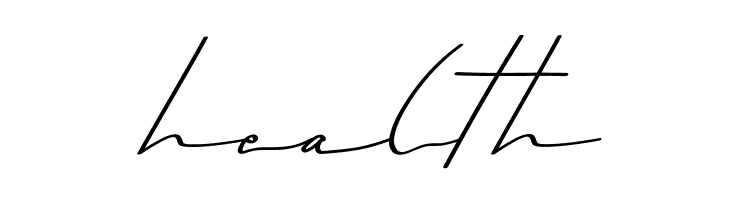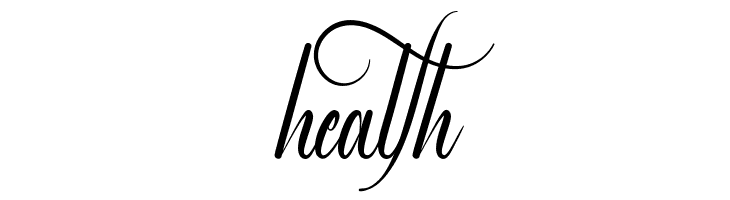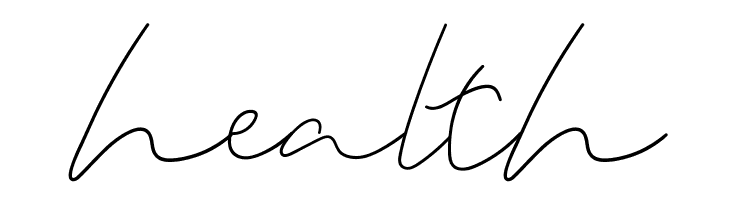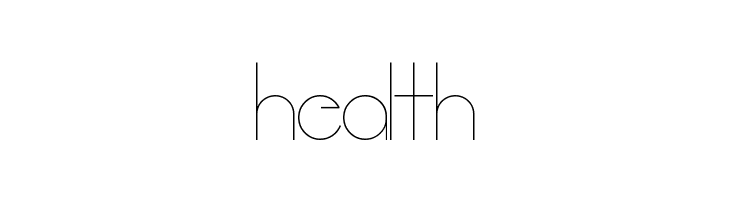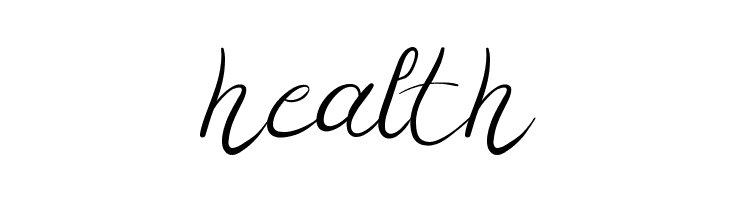
A whimsical and flowing script font with elegant, fluid letterforms.
A delicate and elegant script font with flowing, whimsical curves.
A flowing, cursive script with elegant loops and swashes, mimicking traditional calligraphy.
A bold, expressive script font with fluid, connected letters and dynamic style.
A modern, handwritten font with a casual and flowing style.
A bold, playful font with rounded strokes and a cartoonish style.
A playful, bold outline font with a cartoonish and whimsical style.
A bold, playful font with a cartoonish style and shadow effect.
A dynamic handwritten font with fluid, cursive strokes and medium contrast.
A flowing, cursive font with interconnected characters and a sophisticated style.
A bold, playful font with hand-drawn, flowing letterforms and a modern style.
A dynamic, cursive font with fluid strokes and a modern, artistic flair.
A flowing, cursive font with elegant, interconnected characters.
A modern, geometric outline font with a futuristic and technical style.
A geometric, modern font with clean lines and angular shapes.
A dynamic and elegant script font with fluid, connected letterforms.
A graceful and flowing script font with interconnected letterforms and a modern calligraphic style.
A modern and elegant font with elongated strokes and subtle curves, perfect for artistic projects.
A playful, handwritten font with smooth, flowing lines and a casual style.
A modern outline font with consistent stroke width and rounded edges, perfect for playful designs.